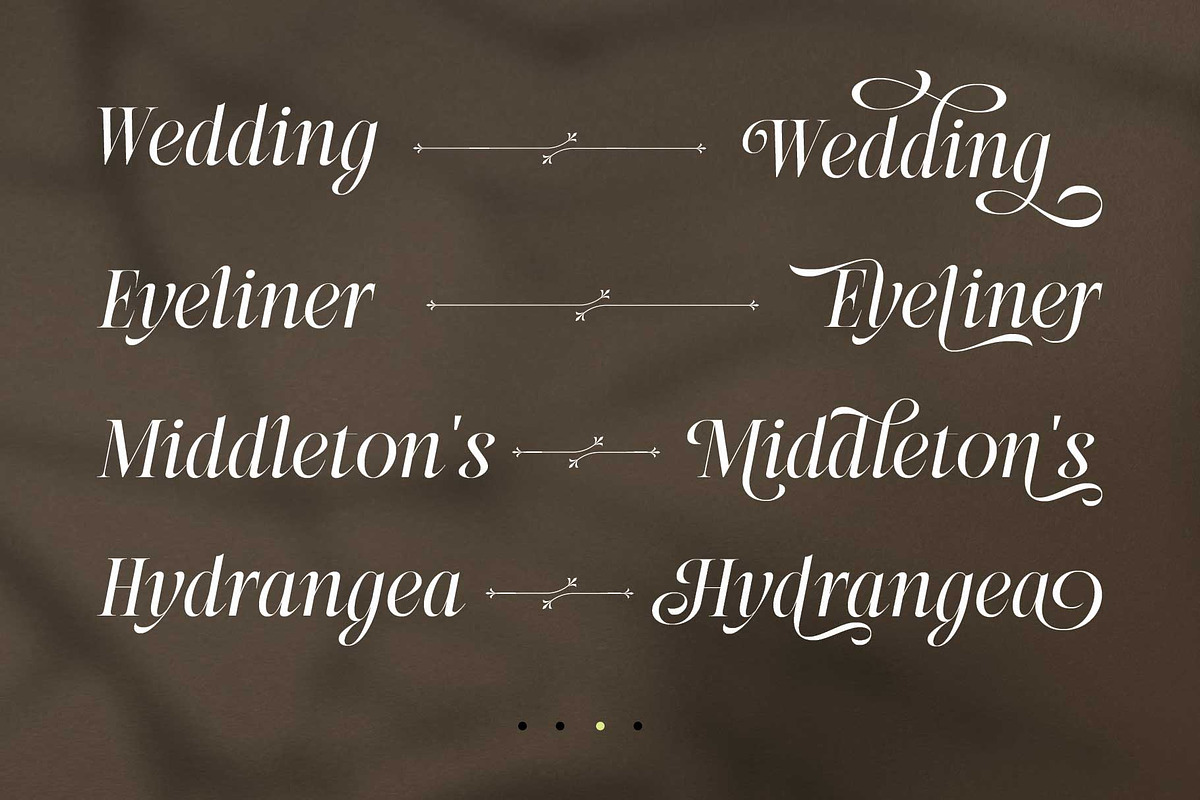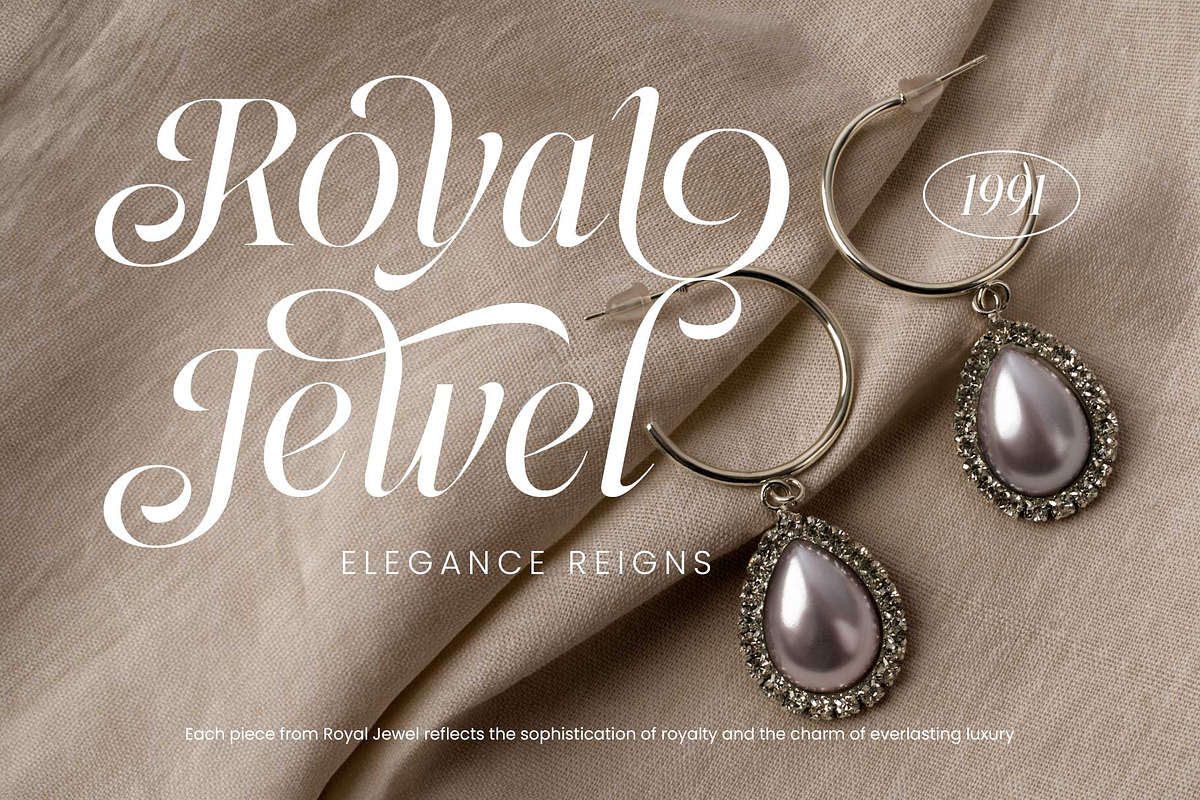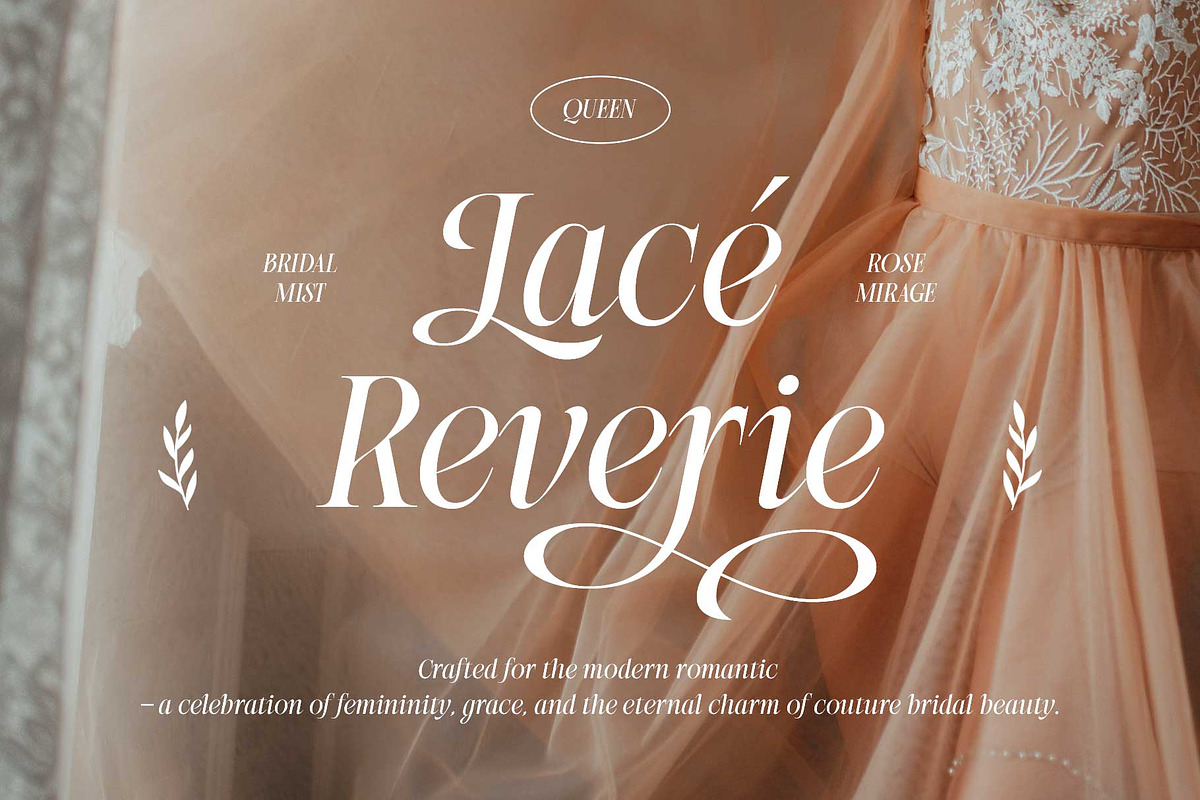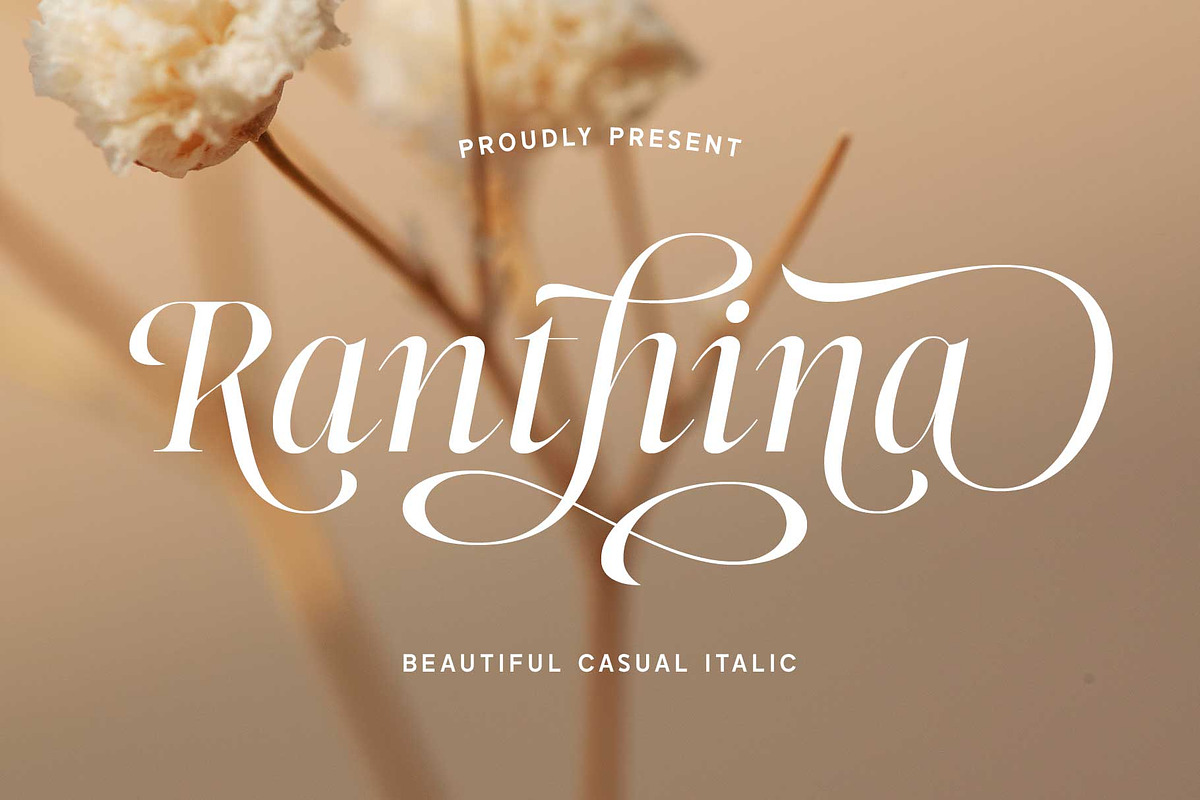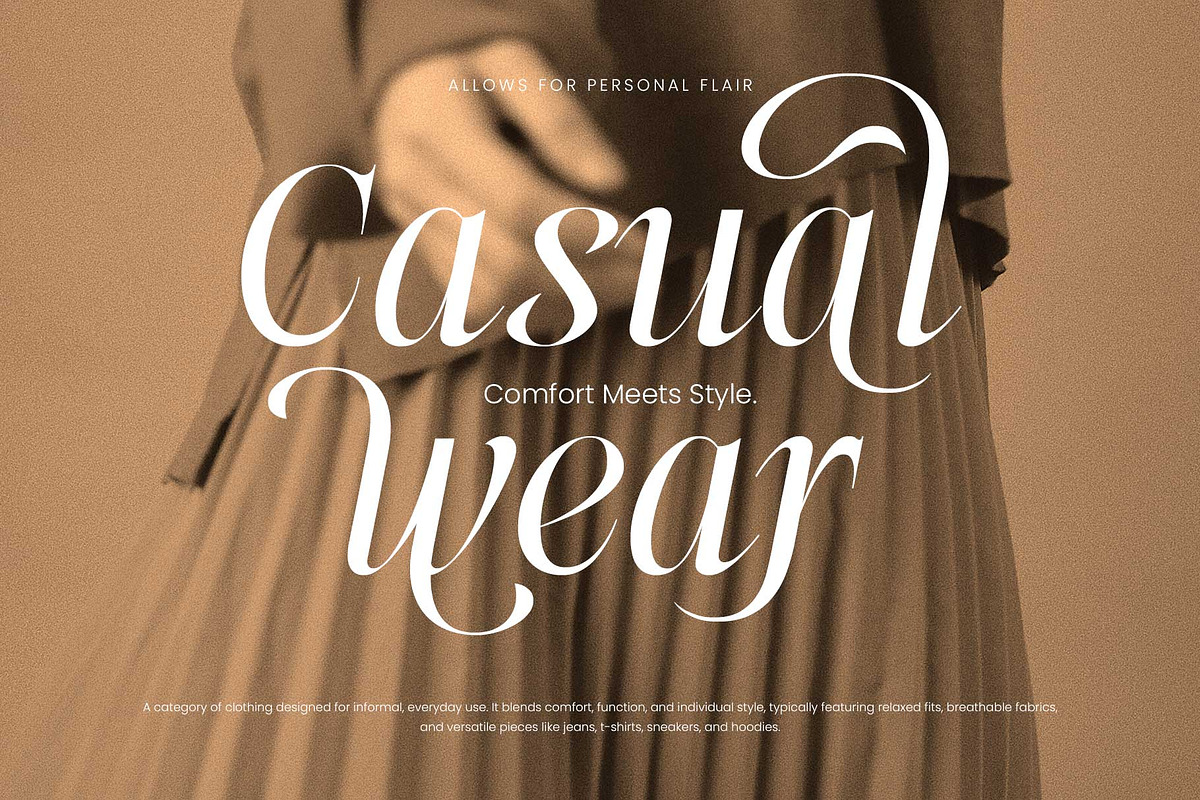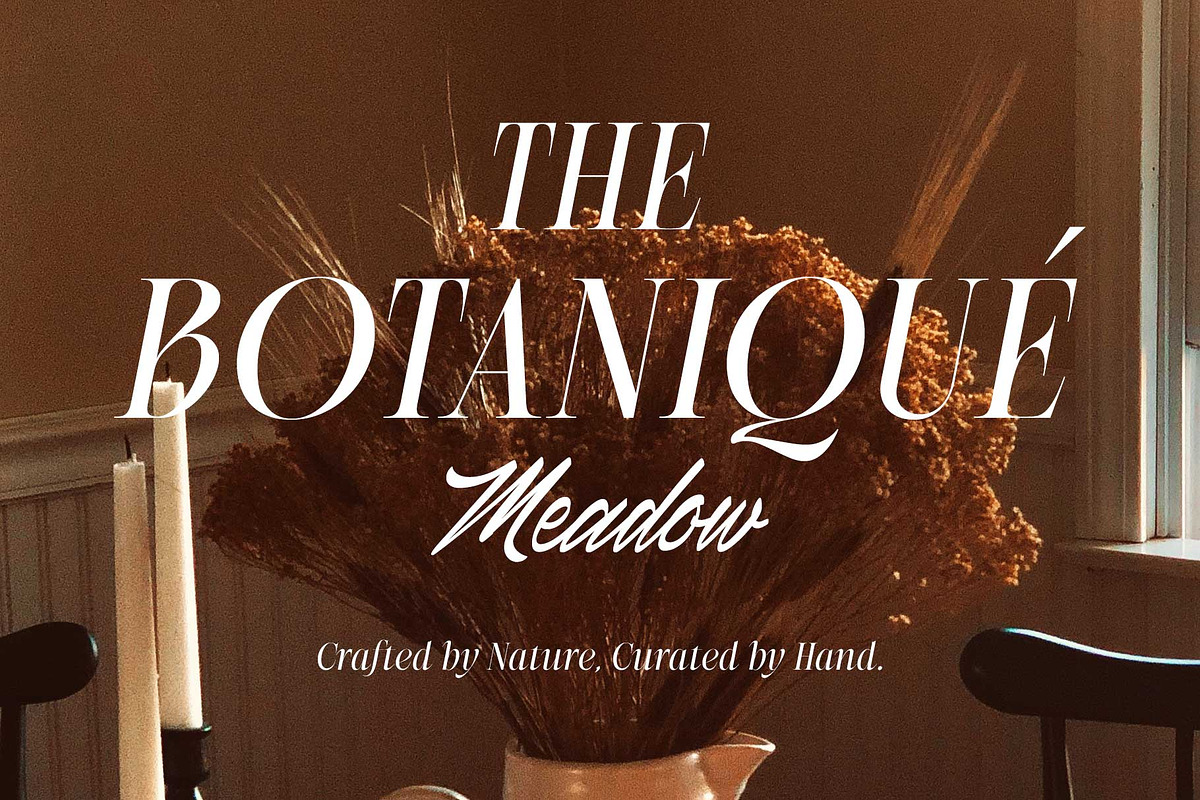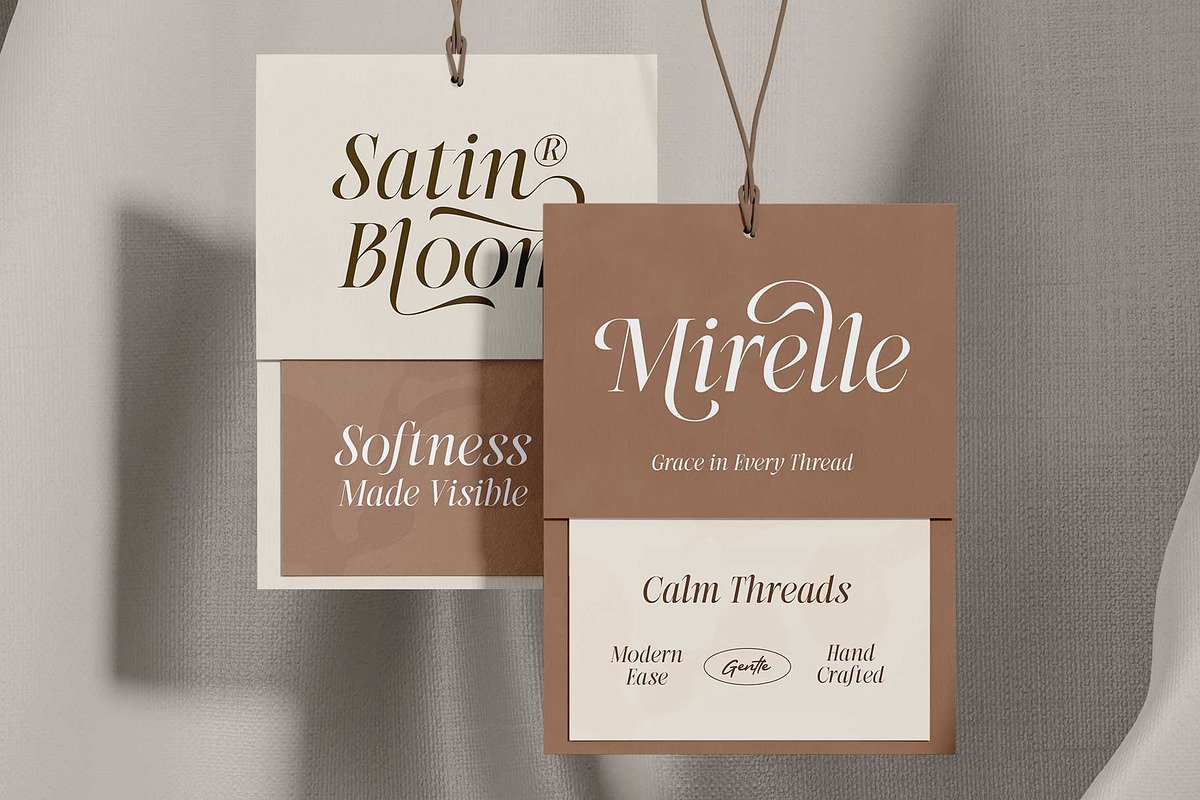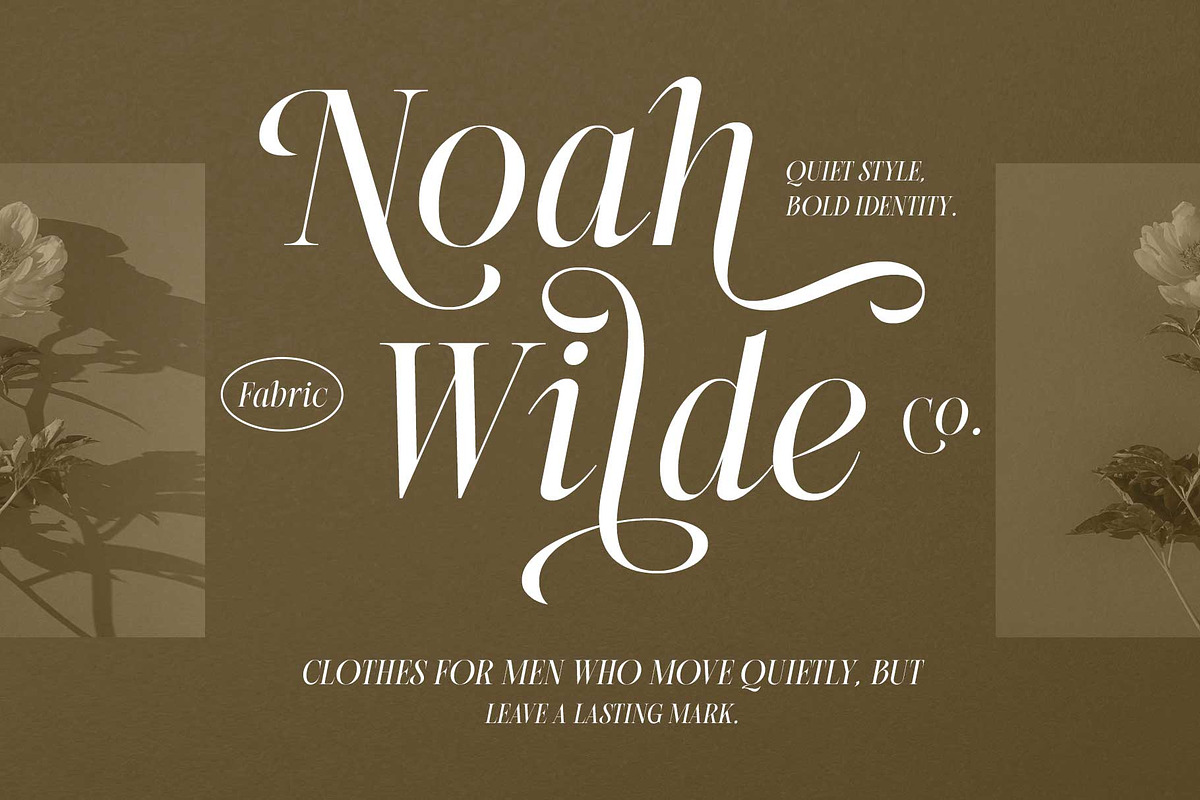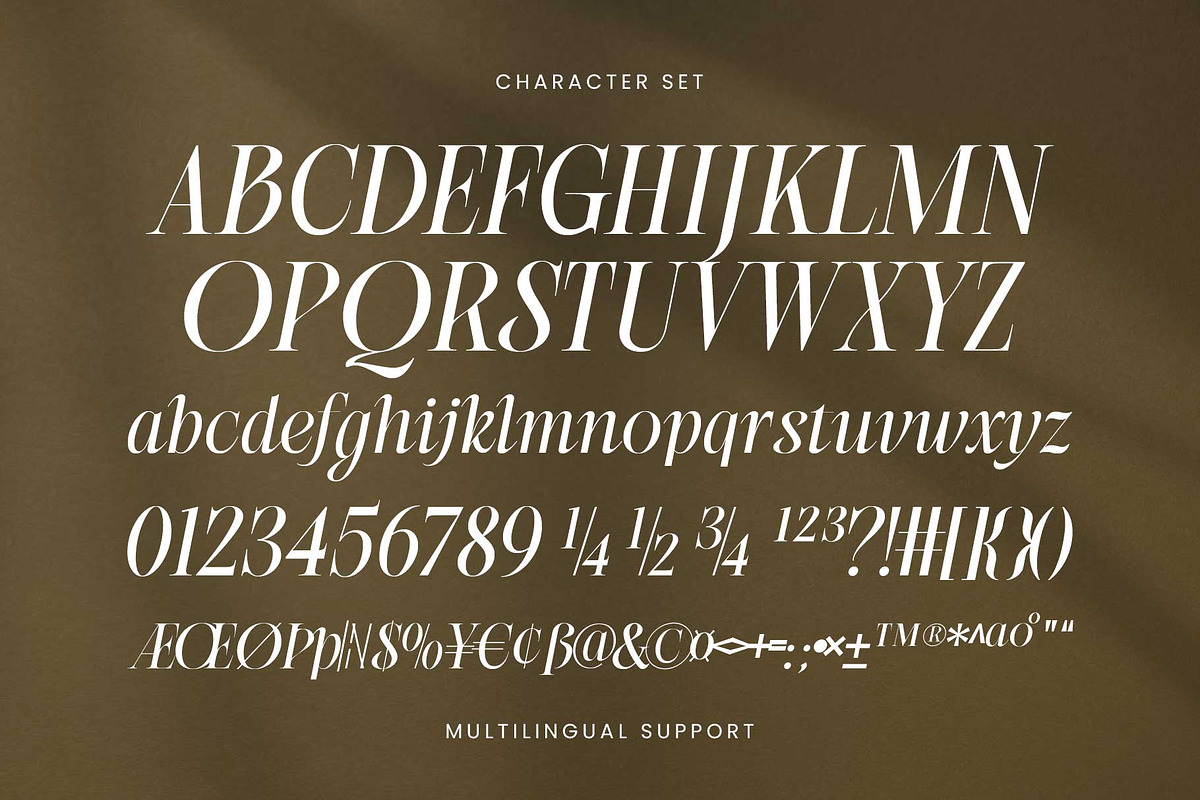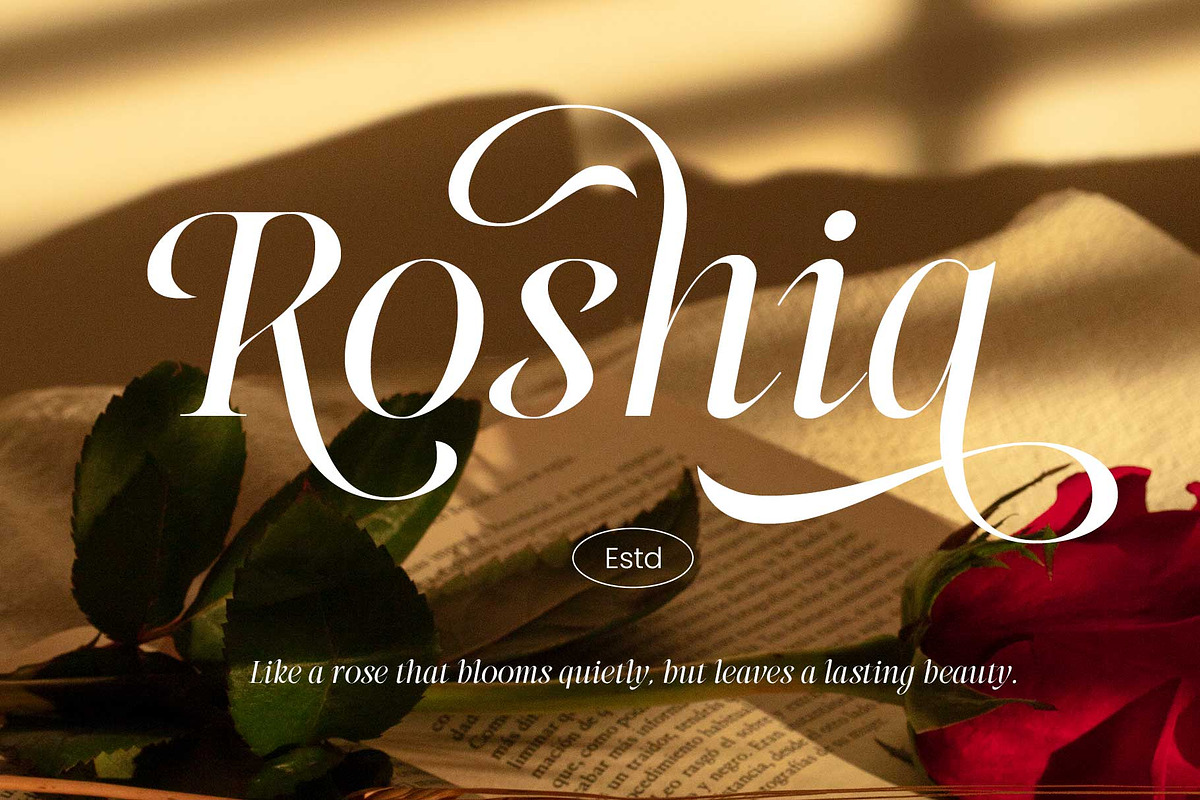
Rathina - Casual Italic
Introducing Ranthina – A Romantic Italic Font with Flourishes and Elegance
Ranthina is a refined and romantic italic typeface, crafted with graceful flourishes. Designed with high-contrast strokes, it brings a perfect blend of drama and softness — ideal for projects that need an elegant, luxurious touch.
With 300+ special characters, Ranthina offers extensive multilingual support and creative flexibility, making it a perfect choice for logos, branding, editorial designs, book covers, greeting cards, social media graphics, wedding invitations, and more.
Let your designs speak with emotion and style — let them speak with Ranthina.
- Numbers & symbols
- Stylistic alternates
- Stylistic set 01-47
- Mulitlingual support